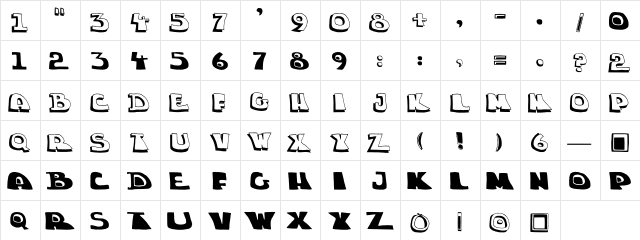
chuck-shadow regular
| Designer | (c) Paul Vincent Groarke |
Design Context for chuck-shadow Typeface
chuck-shadow brings ornamental detail and strong personality to headlines and identities, where visual impact matters more than quiet functionality.
Font Pairing: Pair with a clean neutral sans-serif for body copy to let chuck-shadow's character lead without overwhelming the composition.
Pro Tip: Treat chuck-shadow as the centrepiece of your typographic hierarchy. One strong heading set in a decorative face can carry an entire layout.